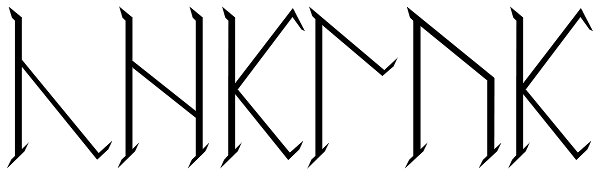
Tolkien Certar
Based on the more usual pen stroke form of 'runes', (translation of Elvish Certar and Cirth). The richest form was also known as the Alphabet of Daeron. NOTE: this font comes with an interpretation guide in pdf format.